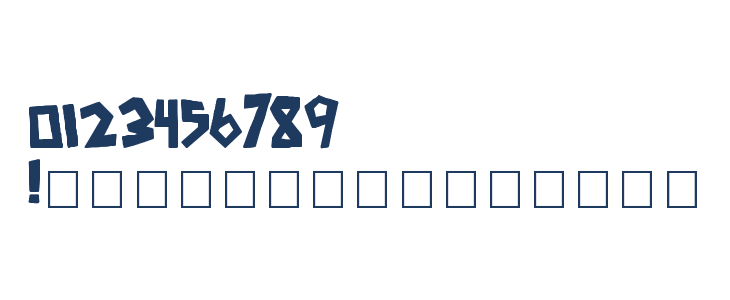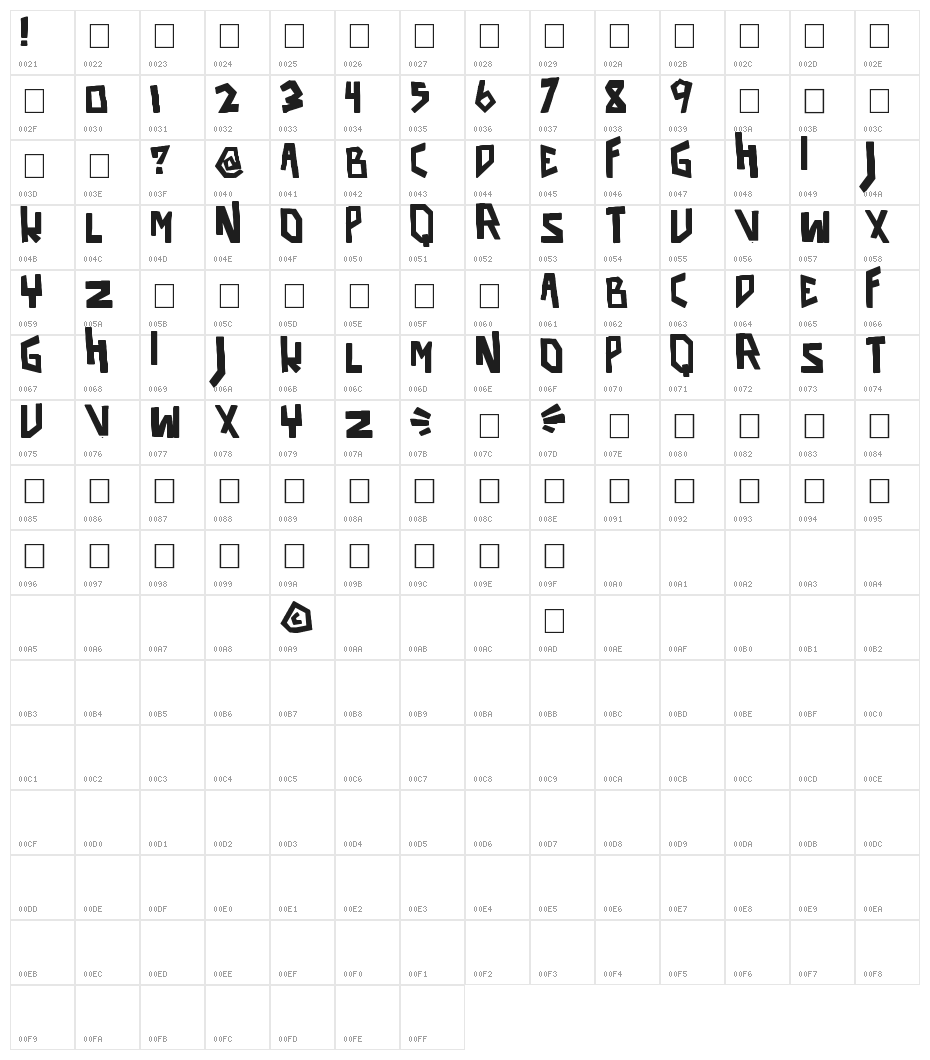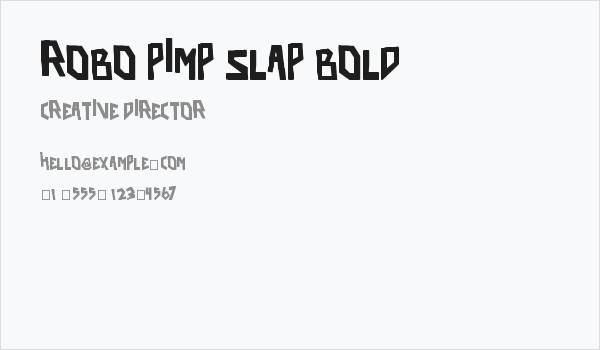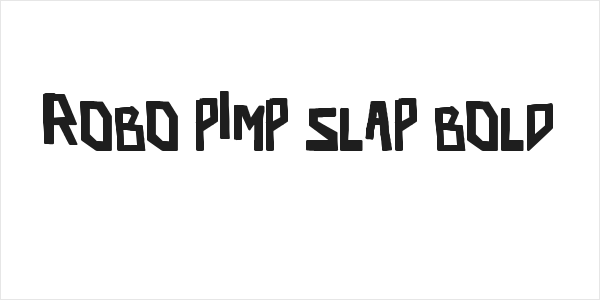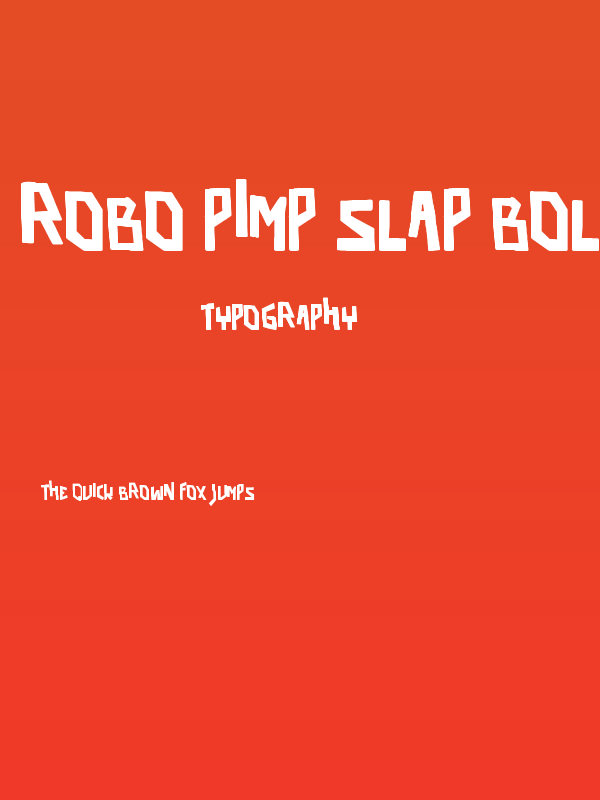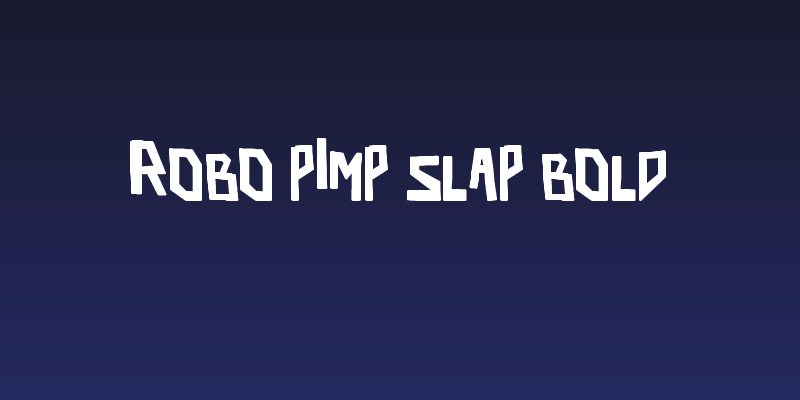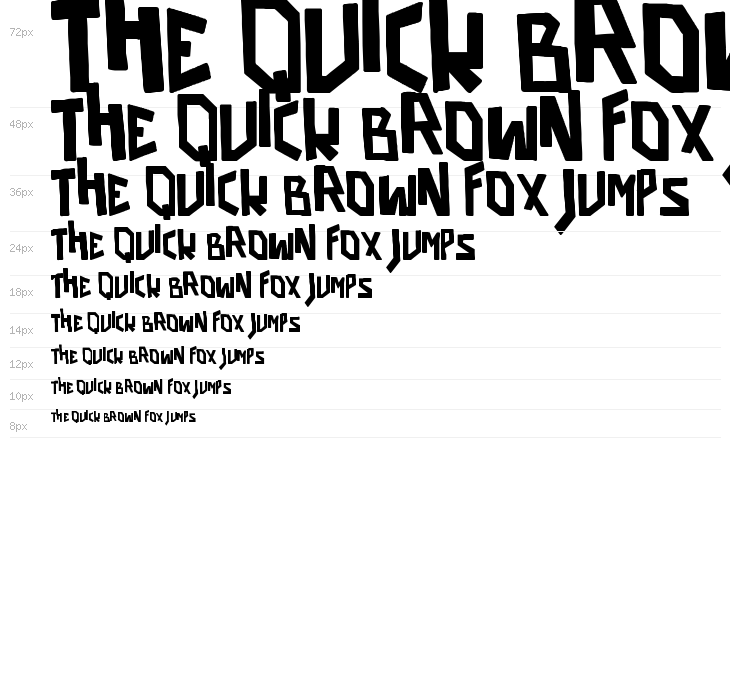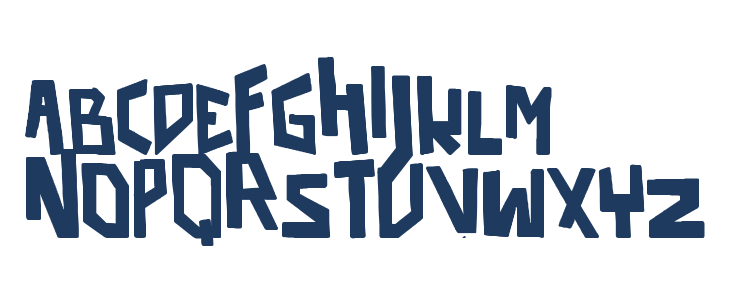
robo pimp slap Bold Font
robo pimp slap Bold Description
This font features a bold, angular design with a distinctly modern and edgy appearance. The characters are heavily stylized with sharp, geometric lines and a blocky structure that gives them a strong, impactful presence. The uppercase letters are particularly striking, with exaggerated angles and a slightly condensed form that enhances their boldness. The numerals and special characters maintain this aesthetic, ensuring consistency across all glyphs. This font is ideal for projects that require a bold statement or a futuristic, industrial vibe.
Proposed ProjectsIdeal for posters, album covers, video game graphics, and branding that requires a strong, modern impact.